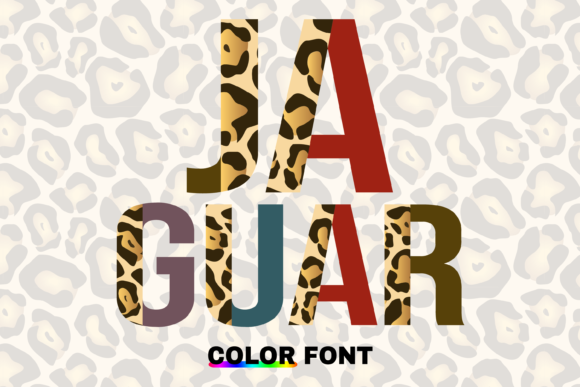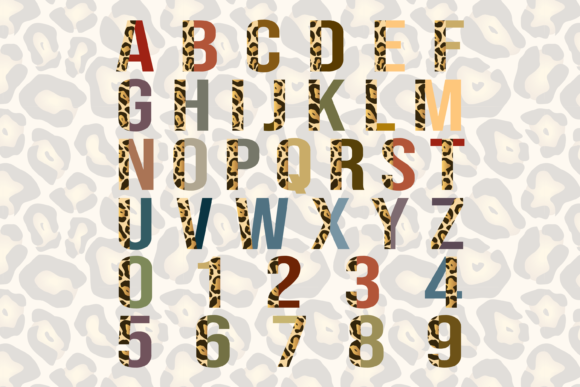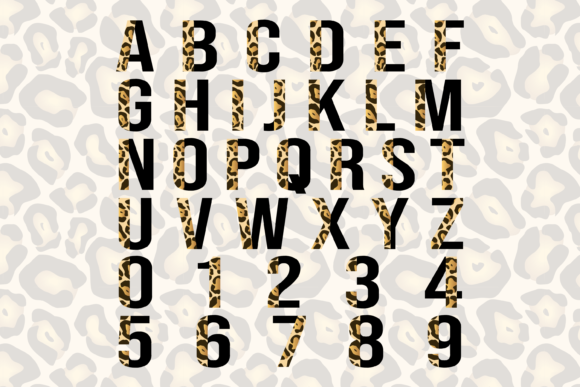
Jaguar Font
About Jaguar Font
Introducing Jaguar, a cool and bold color font that combines two complementary styles – black and color – to give your designs a unique and striking look. Whether used together or separately, Jaguar is the perfect choice for adding special decoration and a lovely touch to your crafts.
With its bold and eye-catching characters, Jaguar is versatile and suitable for a wide range of creative projects. Whether you’re designing custom artwork, engaging in DIY crafts, or simply looking to add a special touch to any creation, this font will be an amazing choice.
The duo styles of Jaguar, the black and color variants, work harmoniously to provide you with different options and possibilities for your designs. The black style adds a sleek and timeless elegance, while the color style brings vibrancy and excitement. You can use them together to create captivating compositions or choose one style that best suits your project’s needs.
Jaguar is designed to stand out and make a statement. Its bold and decorative nature adds a touch of uniqueness to any design. Whether you’re creating custom designs, personalized crafts, or engaging in creative endeavors, Jaguar will elevate your work and catch the attention of your audience.
Embrace the versatility and uniqueness of Jaguar, and let your creativity soar. Explore the possibilities of combining the black and color styles, and see how they can transform your designs. Whether you’re working on personal projects, professional designs, or crafts, Jaguar is here to help you create amazing and visually appealing artwork.
So, go ahead and unleash the power of Jaguar. Let its bold and decorative characters add a special touch to your creations and make them truly stand out. Enjoy the process of designing with Jaguar, and let it inspire you to create beautiful and captivating designs.